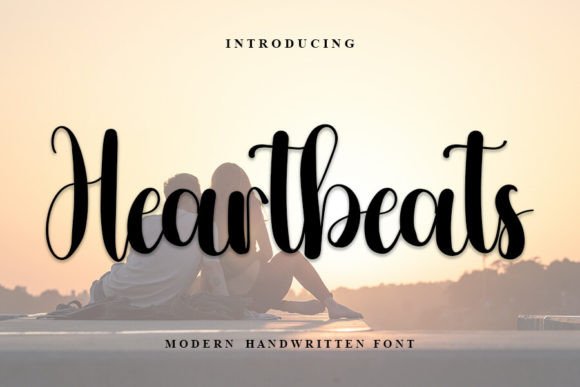
Introducing Heartbeats Font, the ultimate choice for all typography enthusiasts seeking the perfect blend of elegance and creativity. Created by the talented team at Inermedia STUDIO, this script font is destined to captivate your heart and elevate your design game to new heights.
Heartbeats Font boasts a casual and relaxed handwritten style that exudes warmth and charm. Its organic strokes flow effortlessly, leaving a lasting impression on any project you undertake. Whether you're designing wedding invitations, crafting beautiful stationary art, or creating eye-catching social media posts, Heartbeats Font is your go-to companion.
With its versatile nature, Heartbeats Font adapts flawlessly to any design concept. Its ability to evoke a sense of romance and tenderness makes it the perfect choice for adding a touch of love to your projects. Let your imagination run wild as you transform ordinary text into a work of art that speaks directly to the heart.
But Heartbeats Font is not just a pretty face. It is a powerful tool that empowers you to convey emotions and create a connection with your audience. Its ability to evoke a sense of nostalgia and sentimentality is unparalleled. With every stroke, your message will resonate deeply, forging a lasting bond between your brand and its followers.
Embrace the magic of Heartbeats Font and witness the transformation it brings to your designs. Let your creativity flourish as you explore the endless possibilities this font has to offer. Its effortless charm and timeless appeal will ensure that your projects leave a lasting impression on all who lay eyes upon them.
In conclusion, Heartbeats Font is more than just a font – it's an experience. Its rich, captivating style will breathe life into your designs, leaving a lasting impression on your audience. So why settle for ordinary when you can embrace the extraordinary? Step into the world of Heartbeats Font and let your imagination soar. Your design journey begins here.